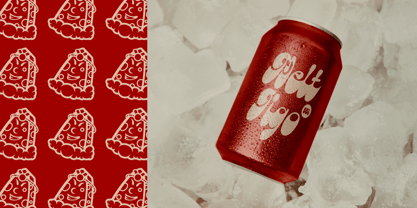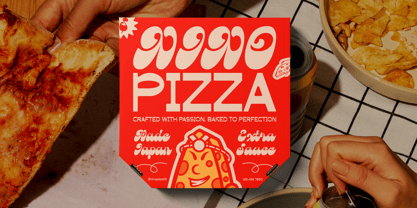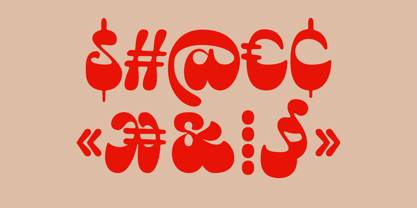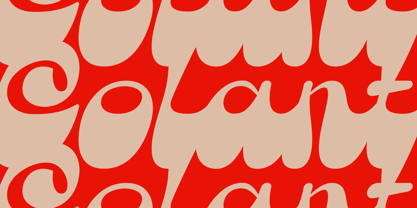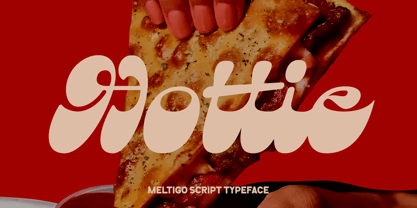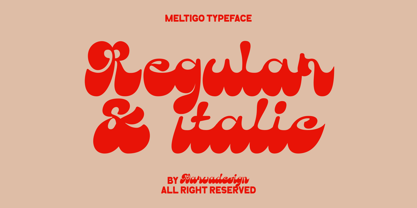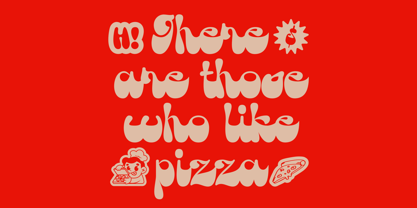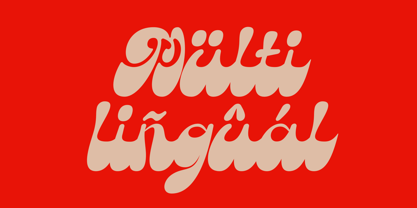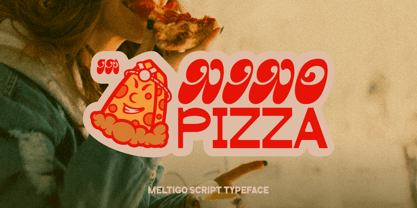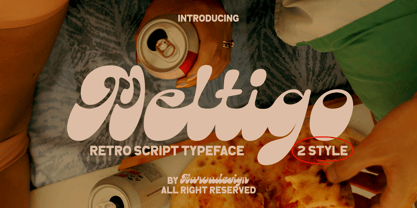
Meltigo
by Marvadesign
The Meltigo Font Family was designed by Febrie Setiawan and published by Marvadesign. Meltigo contains 2 styles and family package options. More about this family
The Meltigo Typeface is a bold and playful retro script font designed by Marvadesign. This typeface embodies a groovy 70s-inspired aesthetic, with exaggerated curves, bubbly letterforms, and high contrast between thick and thin strokes. Its unique look is a mix of expressive brush-style lettering and smooth, rounded forms, which gives it a soft, melting appearance hence the name Meltigo.
Meltigo comes in two distinctive styles: Regular and Italic, allowing designers to play with typographic contrast while maintaining a cohesive look. It supports both uppercase and lowercase characters, numerals, and a variety of punctuation marks. The font features a full character set with stylistic alternates that emphasize its vintage personality.
This typeface is perfect for branding projects, product packaging, food advertisements, posters, and social media graphics. Its lively and expressive shapes make it ideal for fun, nostalgic, or youth-oriented design themes.